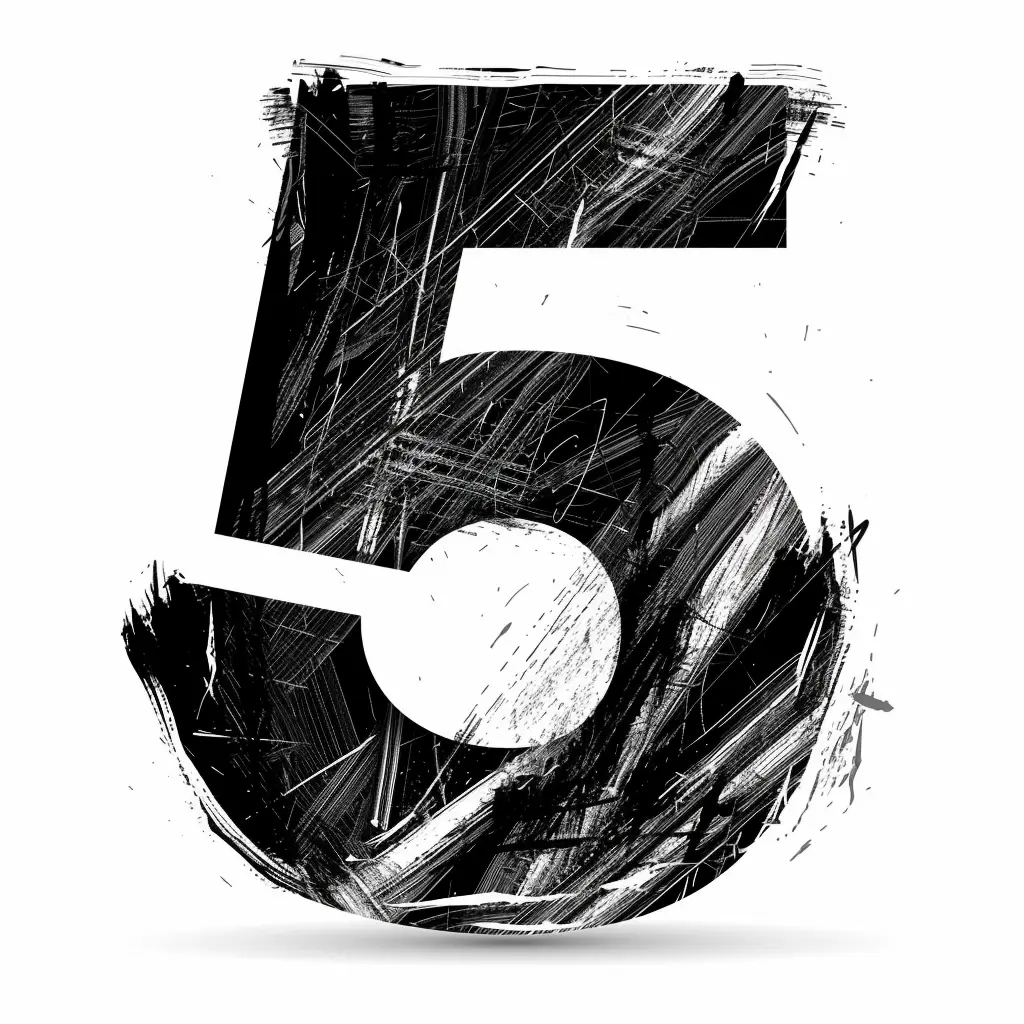
The image features a stylized number "5" rendered in a bold, grungy artistic style. The number is predominantly black with white negative space defining its shape, set against a light gray background. It incorporates rough, textured brushstrokes and chaotic white lines, creating a dynamic, distressed visual effect.